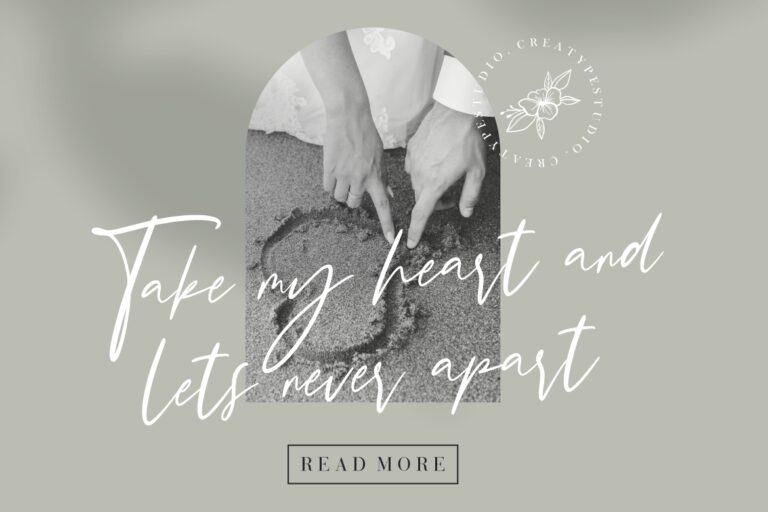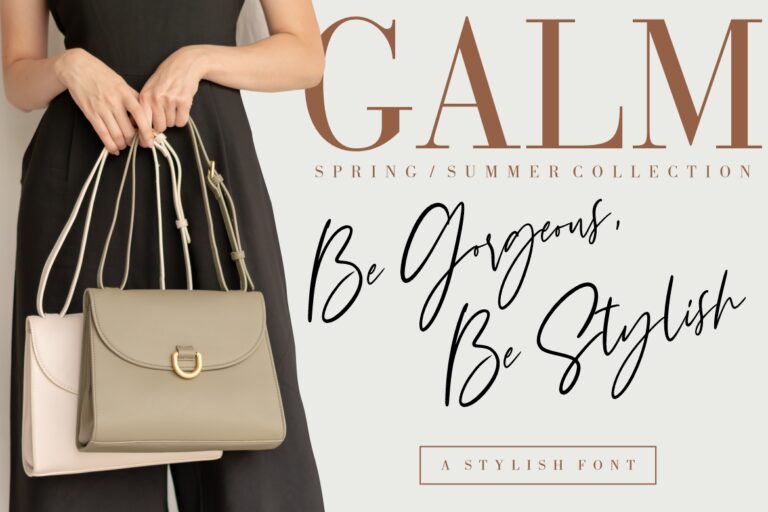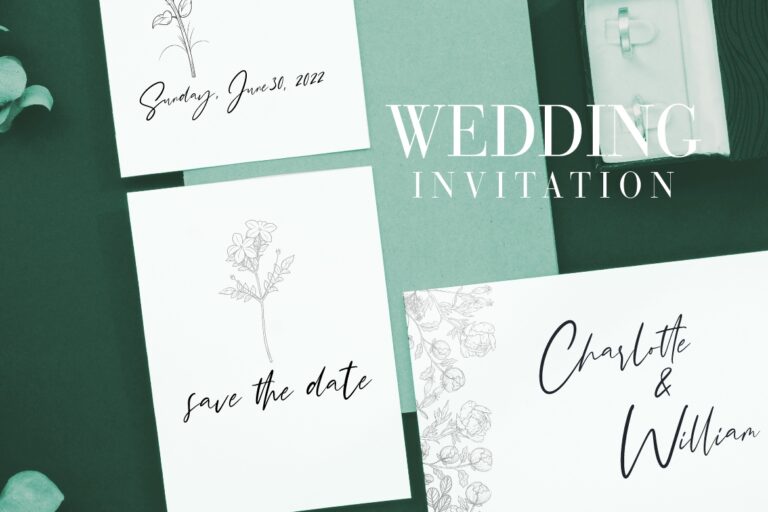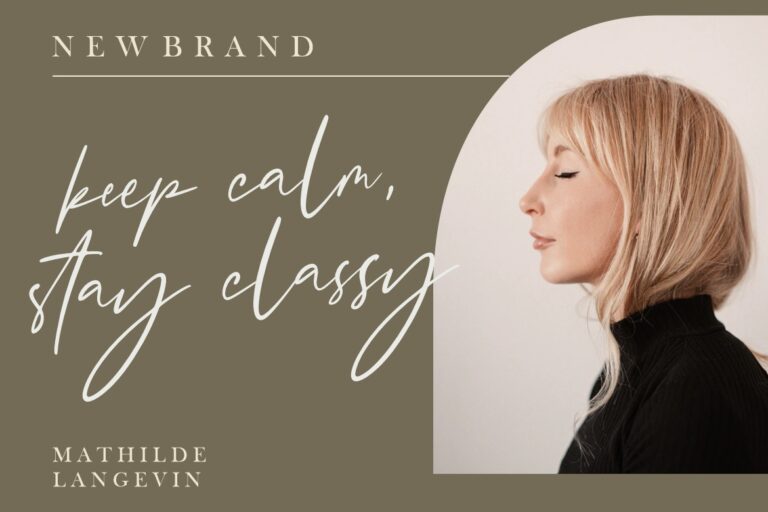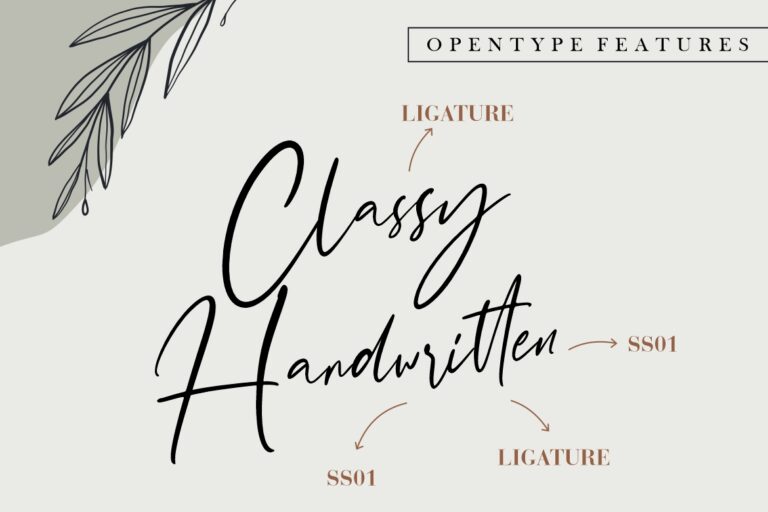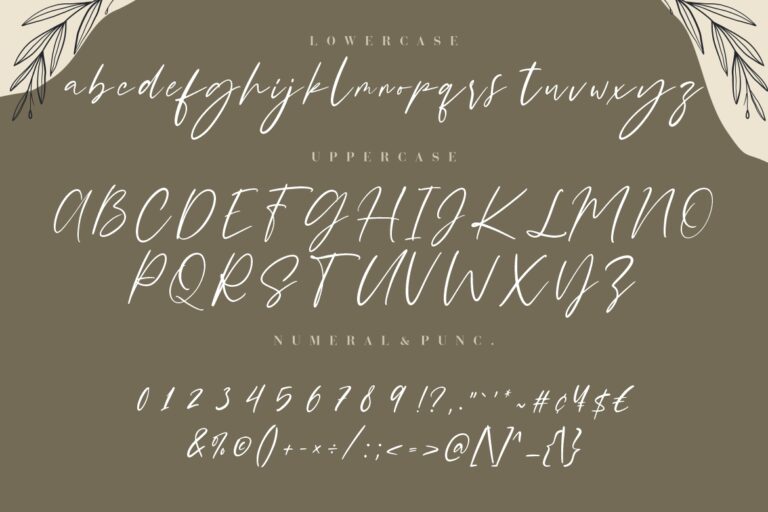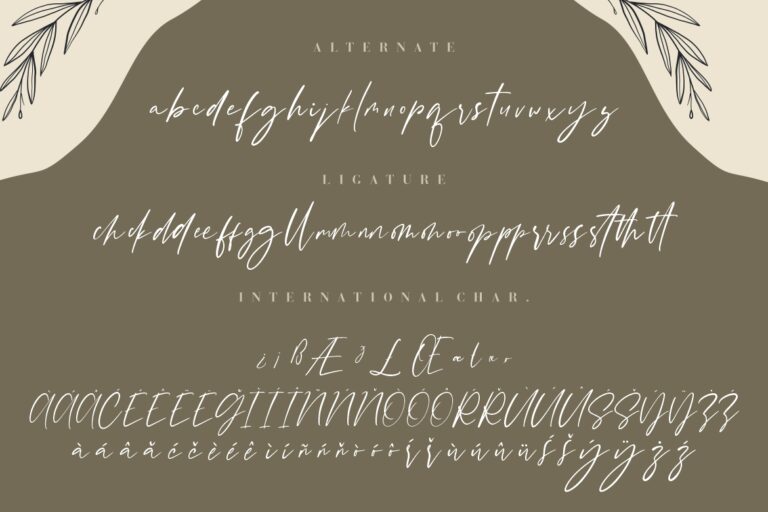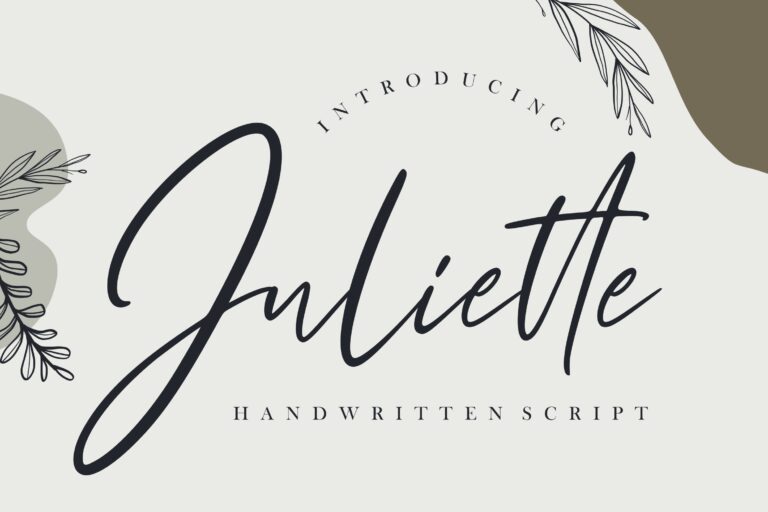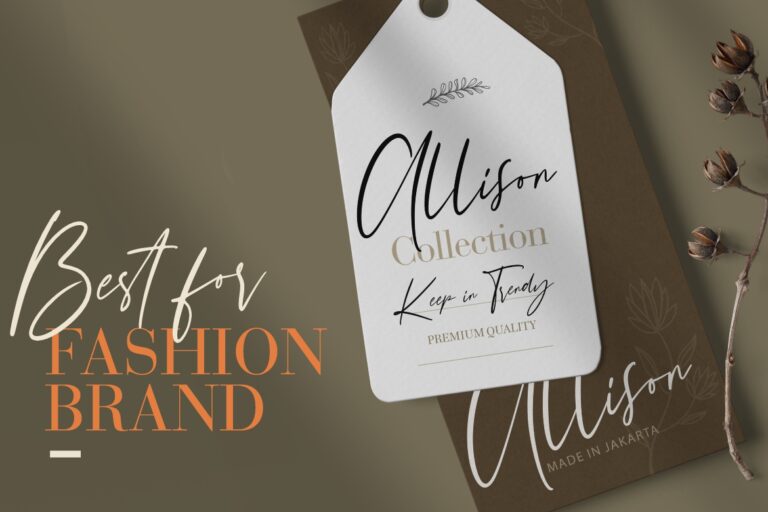
Juliette is handwritten script font which looks elegant, modern and sophisticated typeface.
Juliette is perfect for branding projects, logo, wedding designs, social media posts, advertisements, product packaging, product designs, label, photography, watermark, invitation, stationery and any projects that need handwriting taste.
- Fonts include multilingual support for; Afrikaans, Albanian, Czech, Danish, Dutch, English, Estonian, Finnish, French, German, Hungarian, Italian, Latvian, Lithuanian, Norwegian, Polish, Portugese, Slovak, Slovenian, Spanisch, Swedish.
Juliette Handwritten Script